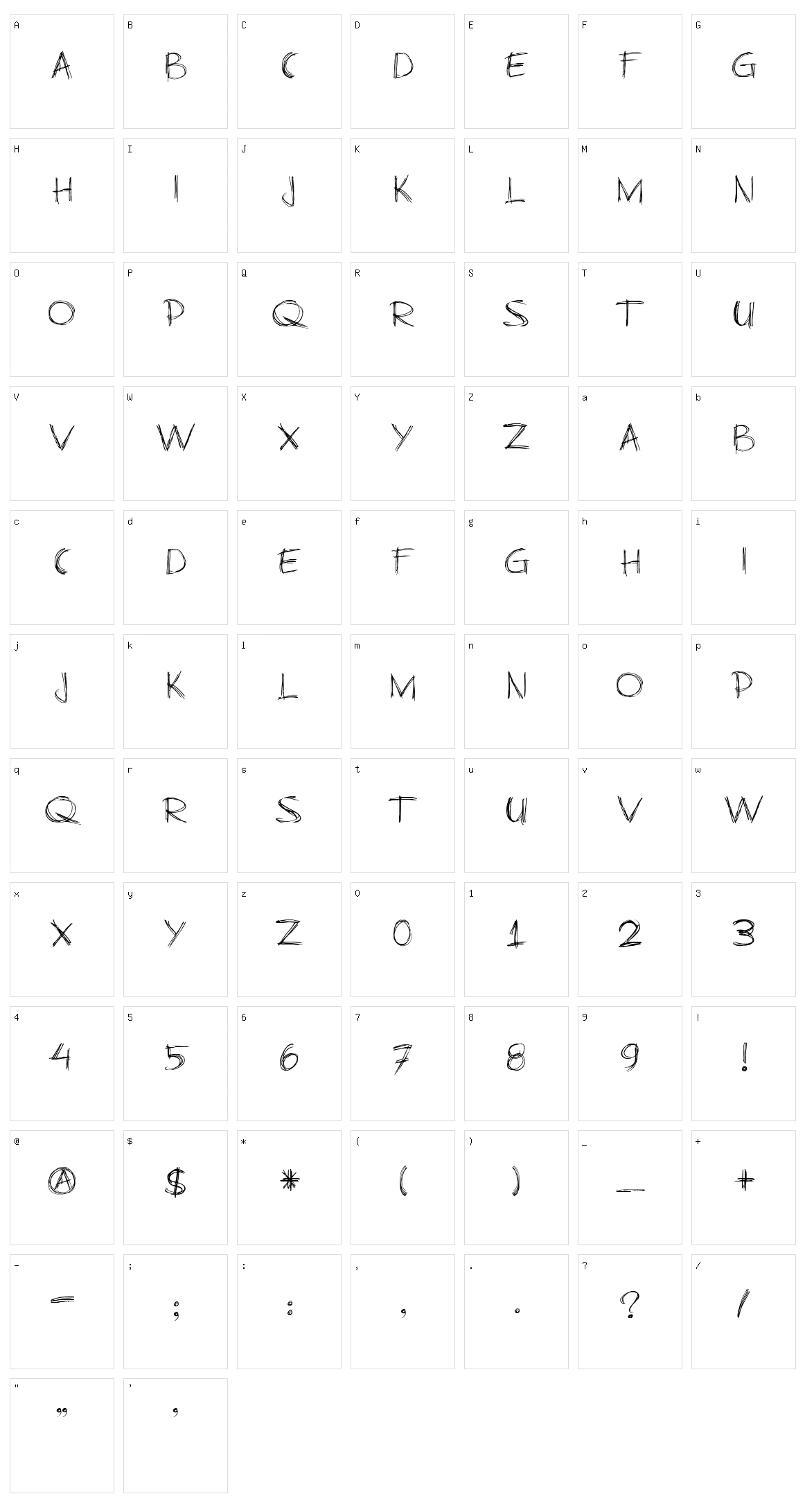
The free font Business As Usual is carefully designed by Hanoded, showcasing a thoughtful balance of creativity and usability and falls under the Trash font style. When you download the ZIP file, it contains only 199.35 KB of font files, making it lightweight and quick to download. Please review the license details below to understand permitted usage and distribution rights. If license information is not available, we recommend using this font for personal projects only or contacting the author directly for commercial usage permissions.